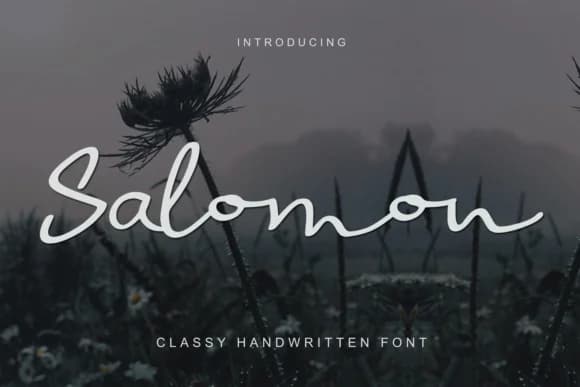
Salomon by I Do Not Sleep is a flowing script font inspired by hand-lettered storefront signage, featuring organic curves and natural letterforms that maintain readability across applications. The typeface beautifully balances the relaxed charm of handwritten text with the technical consistency required in professional design work. Its smooth strokes and even spacing perform well whether scaled to large display sizes for dramatic impact or reduced for intricate detailing.
This font is particularly effective for creating wedding invitation suites and save-the-date cards, where its handcrafted warmth conveys genuine sentiment and personal attention. It translates equally well to custom retail signage, helping boutique brands establish distinctive storefront identities. The script also excels on artisanal product packaging, creating shelf presence for everything from craft cosmetics to specialty food labels that benefit from a handmade aesthetic. Event planners and stationers will find it invaluable for programs, menus, and custom table signage.
The regular weight adapts seamlessly from print applications to digital projects, whether for social media graphics supporting small businesses or website headers for creative professionals. Whether building a complete brand system around handwritten letterforms or adding authentic charm to individual pieces, Salomon delivers consistent, professional results. Discover this distinctive typeface on Creative Fabrica and begin crafting designs with genuine character.
Salomon Font is a script font that shines as a display or heading face. Pair it with a clean sans-serif or serif font for body text β the contrast creates a clear hierarchy while the two styles stay balanced and easy to read.
Salomon Font